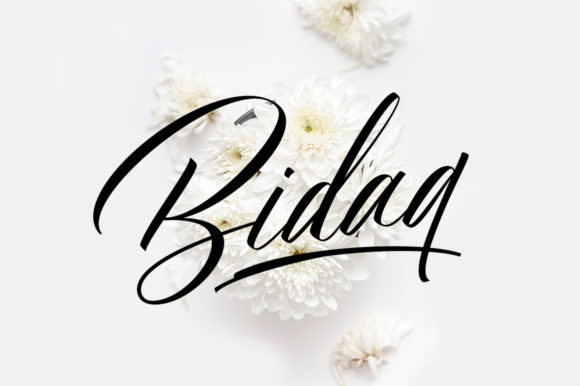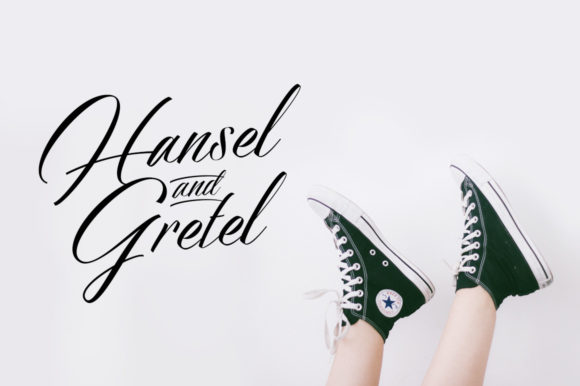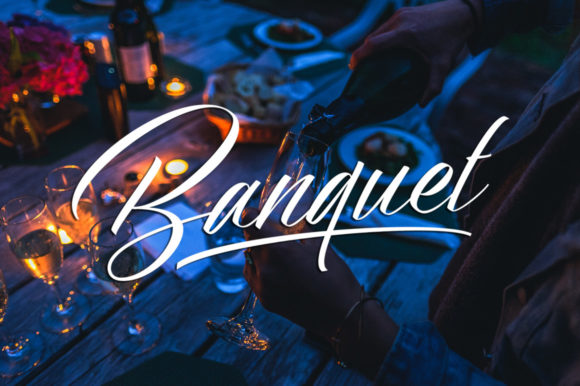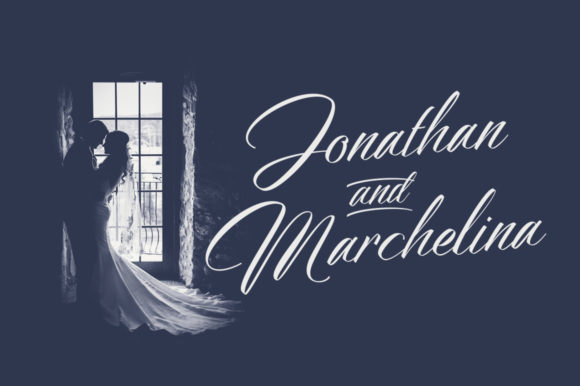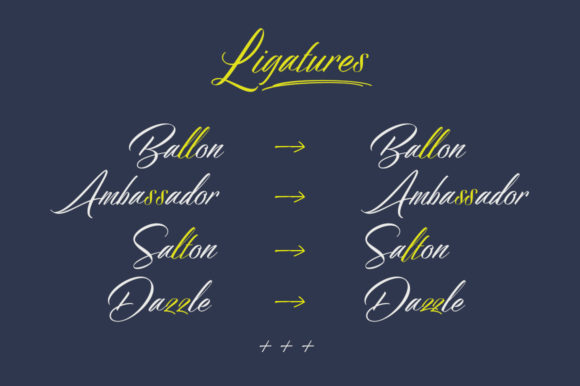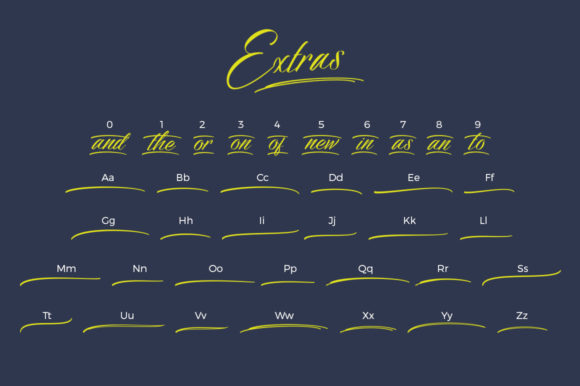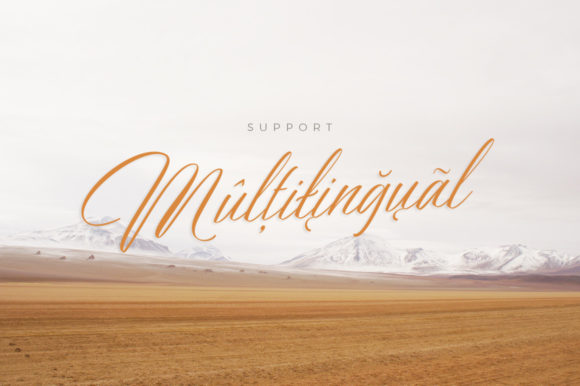
Bidaq Font
About Bidaq Font
Bidaq is a delicate, elegant, and flowing handwritten font. It has beautiful and well-balanced characters and as a result, it matches a wide pool of designs. No matter the topic, this font will be an incredible asset to your fonts’ library, as it has the potential to elevate any creation.